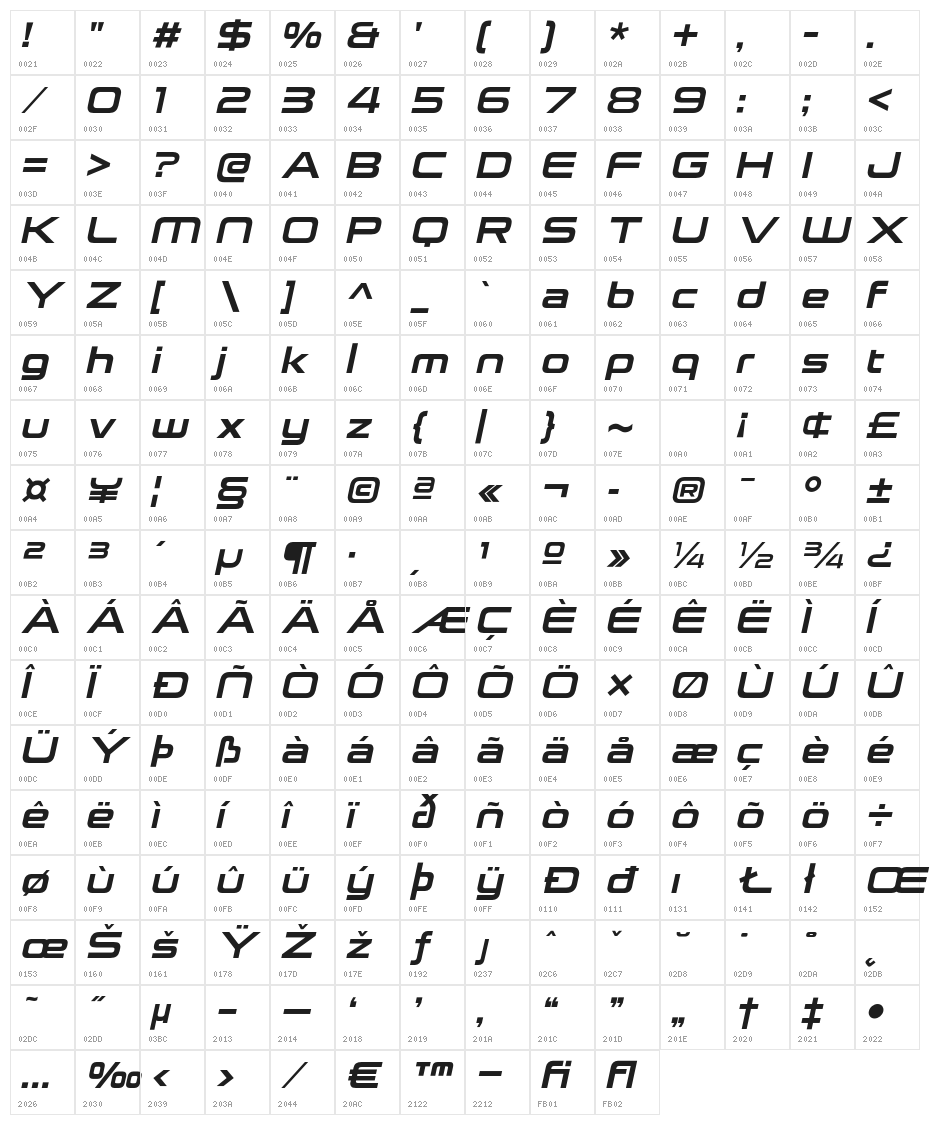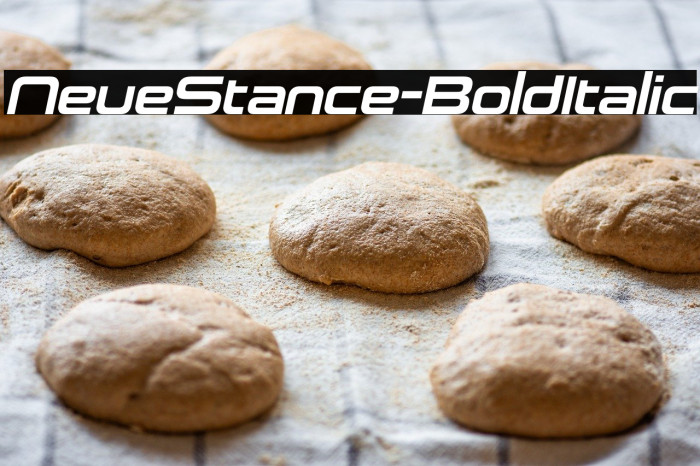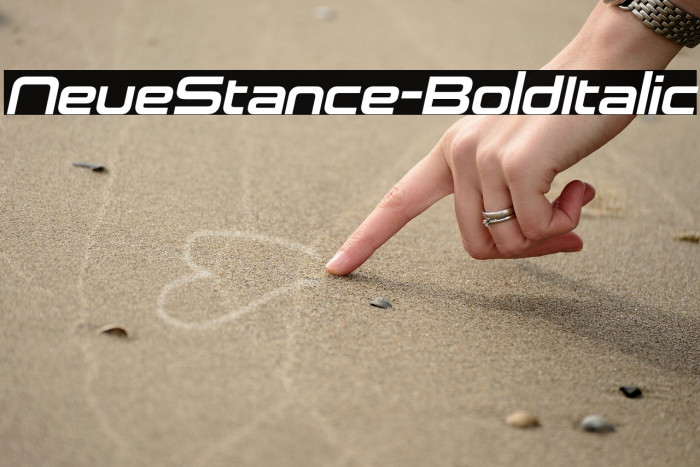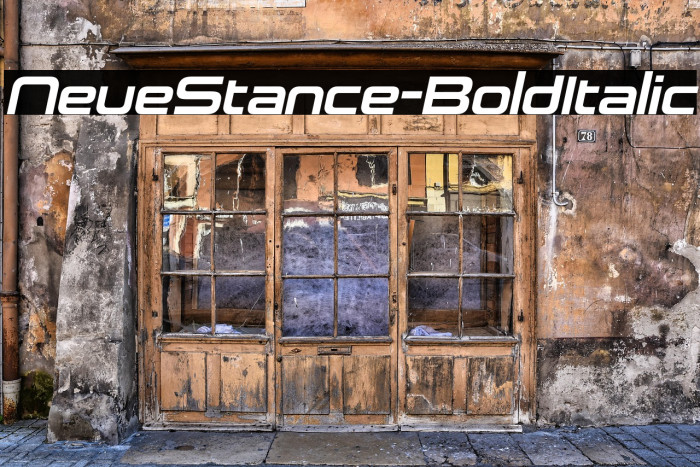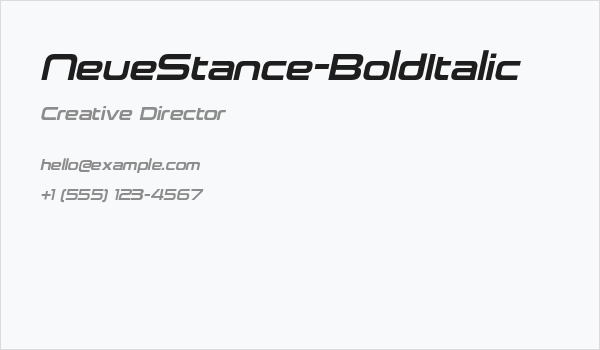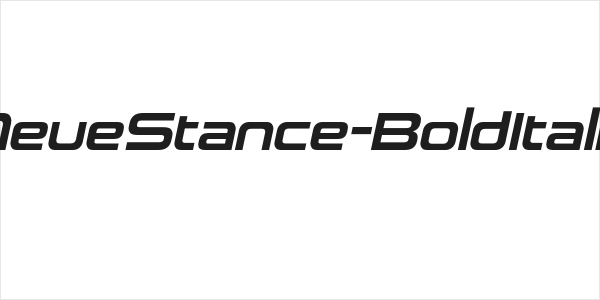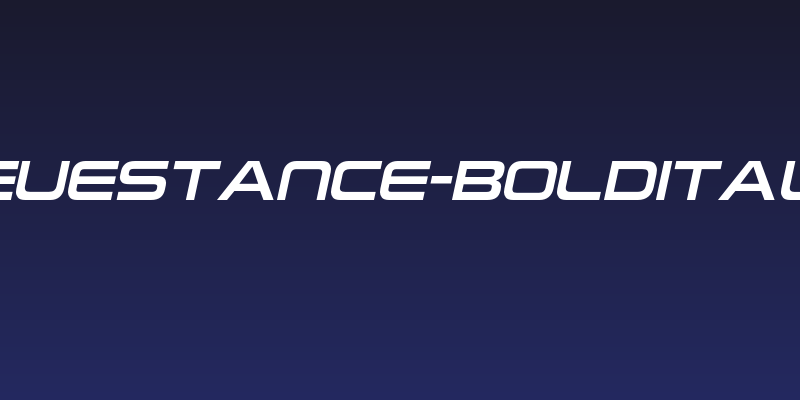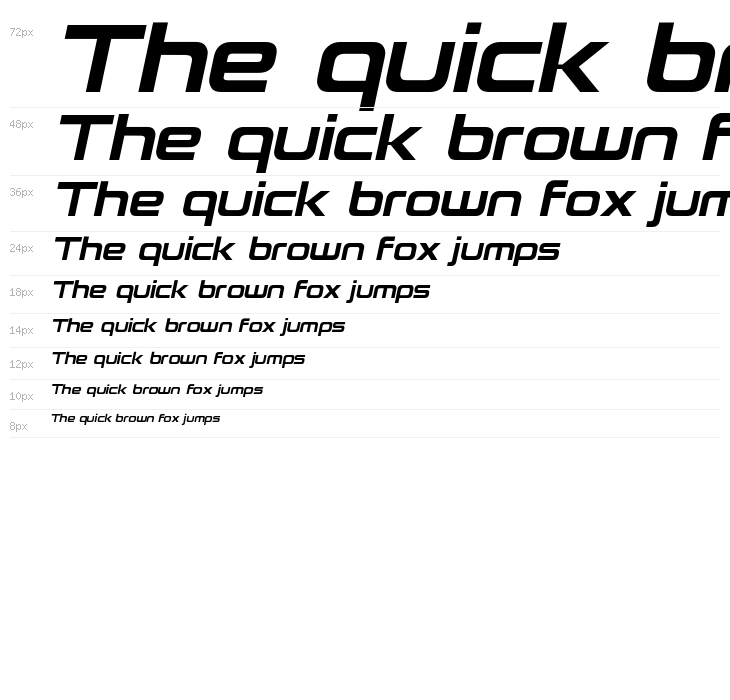
NeueStance-BoldItalic Font
NeueStance-BoldItalic Description
This font features a sleek and modern design with a bold and italicized style. The characters are slightly condensed, giving a streamlined and dynamic appearance. The strokes are consistent in thickness, providing a uniform look across all characters. The font maintains a clean and professional aesthetic, making it suitable for various applications. Its italic nature adds a sense of movement and energy, while the bold weight ensures strong visibility and impact. The character spacing is normal, allowing for easy readability without appearing crowded. The overall style is contemporary, making it ideal for projects that require a modern and polished look.